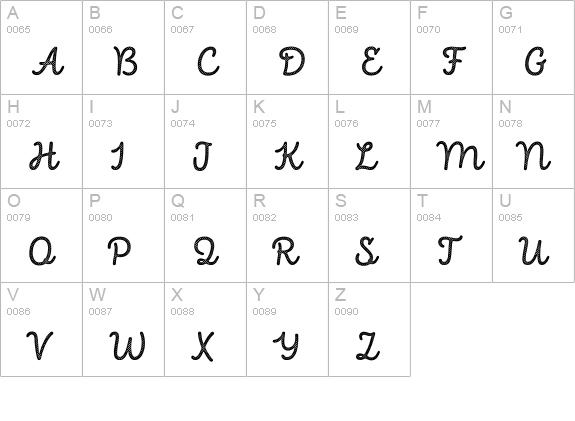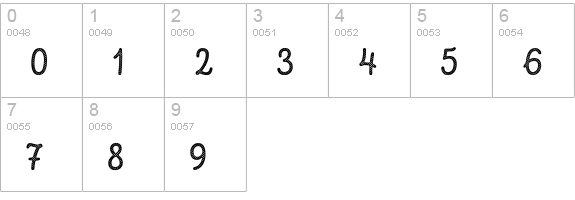
Intro Script B H1 Base Font Details
Introducing Intro Script B H1 Base font, a stunning and versatile typeface that exudes elegance and sophistication. This font features intricate details and graceful curves that make it perfect for adding a touch of luxury to your designs. Whether you're working on branding projects, invitations, or editorial layouts, Intro Script B H1 Base font will elevate your creations to new heights. The best part? This exceptional font is completely free to download at FontsMarket.com. Don't miss out on the opportunity to enhance your projects with this exquisite typeface. Download Intro Script B H1 Base font today and unlock endless possibilities for your creative ventures.